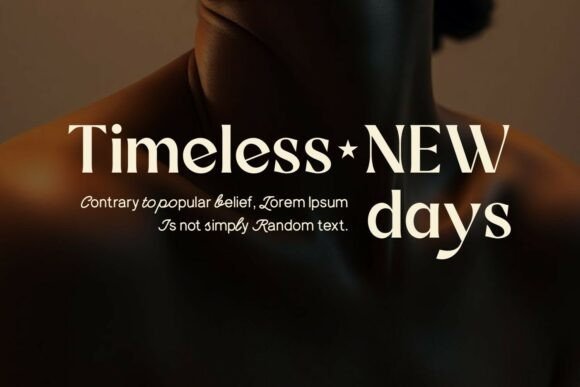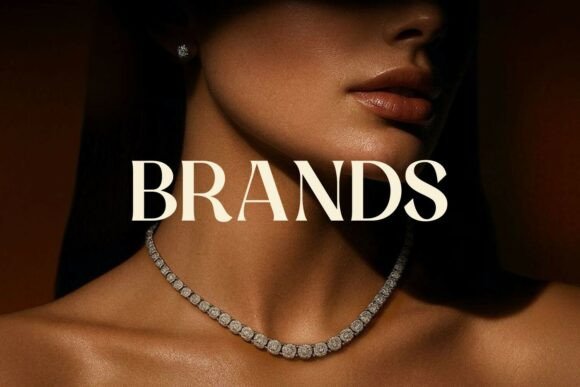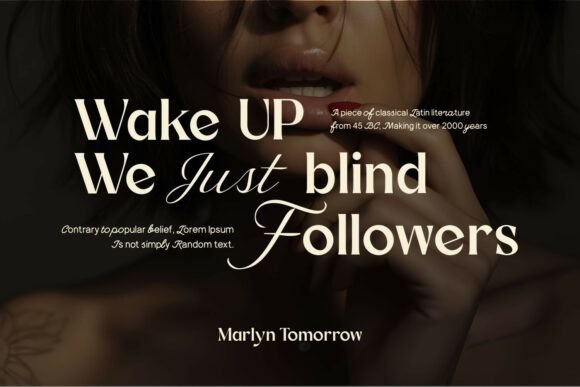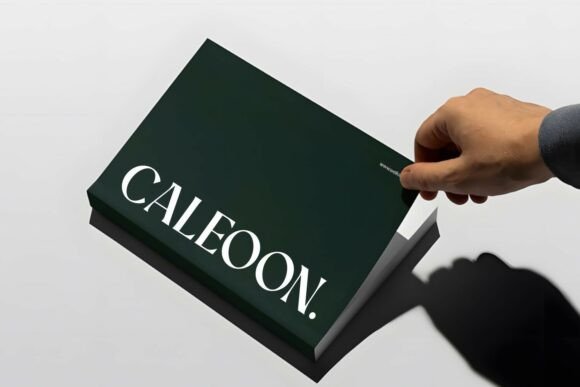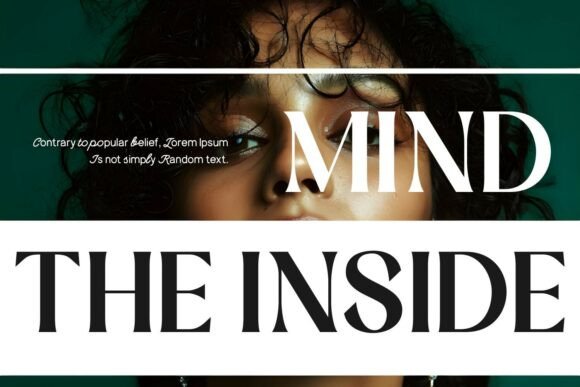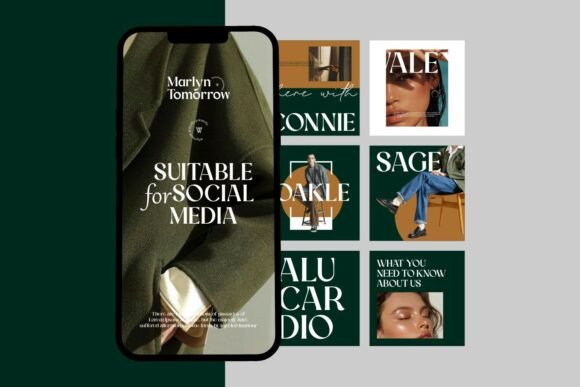
Introduction to Marlyn Tomorrow Font Font
Fonts play a crucial role in design, and the Marlyn Tomorrow Font font is a typeface that brings both character and versatility to any project. Whether you’re working on a branding project, a website, or a print design, the Marlyn Tomorrow Font font offers a unique style that can elevate your work.
Marlyn Tomorrow is a luxury minimal serif typeface designed for refined branding and sophisticated visual identities.
Crafted with elegant proportions, clean high-contrast strokes, and timeless serif details, this font delivers a confident yet graceful presence It blends modern minimalism with classic editorial beauty — making it perfect for brands that want to look premium, calm, and powerful.
Key Features of Marlyn Tomorrow Font Font
Why Choose Marlyn Tomorrow Font Font?
The Marlyn Tomorrow Font font is more than just a typeface – it’s a design tool that helps you communicate your message with style and clarity. Its unique character set and versatile design make it suitable for a wide range of applications, from elegant invitations to bold headlines.
With its carefully crafted letterforms and balanced proportions, the Marlyn Tomorrow Font font ensures readability and visual appeal across all mediums.
What makes Marlyn Tomorrow Font font special?
The Marlyn Tomorrow Font font stands out with its unique design, exceptional readability, and versatility across various design applications.